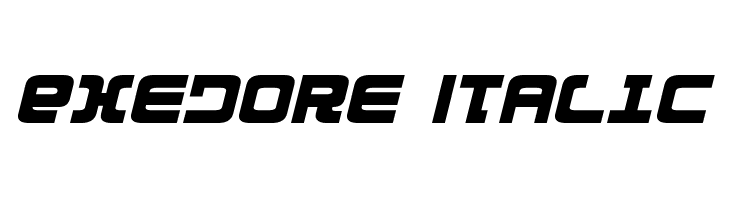
A bold, italicized font with a futuristic and sporty design.
A bold, italicized font with a futuristic and dynamic style, featuring geometric shapes and sharp angles.
A bold, italicized, futuristic font with a stencil-like design and high-tech appeal.
A bold, italicized font with a futuristic and dynamic design.